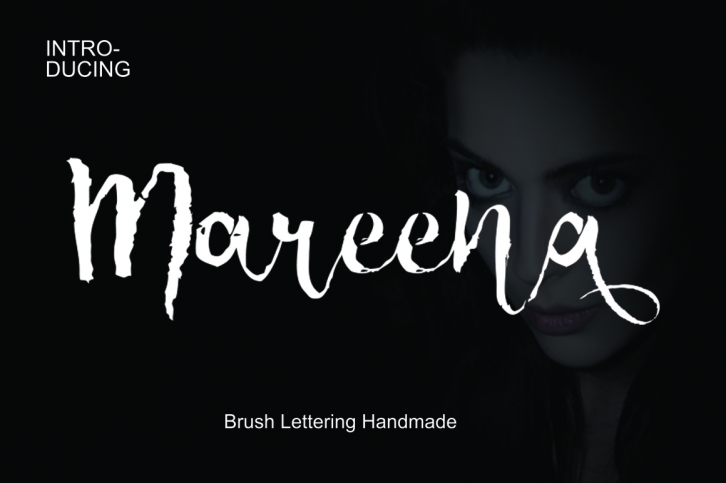
Mareena is a gorgeous font that was realeased on September 9, 2017. The font can be used in many style contexts and design environments. Perfect for invitations, magazines, websites, logos, and more! It was designed by Marxause and the file size is 7.82 MB. Thanks for checking out this font!